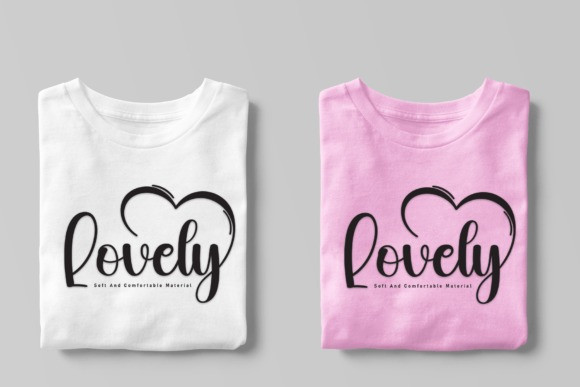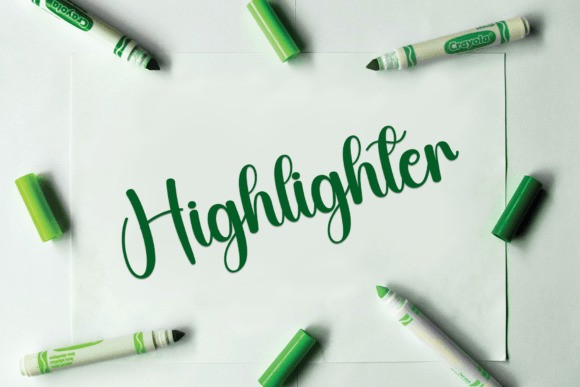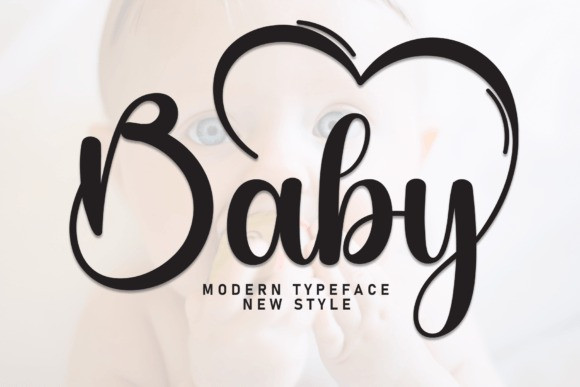
Baby Calligraphy Typeface
Baby Calligraphy Typeface is a lovely and timeless handwritten font. It is the best choice for creating eye catching logos, branding and quotes. Every letter has a unique and beautiful touch, which will make your design come alive!